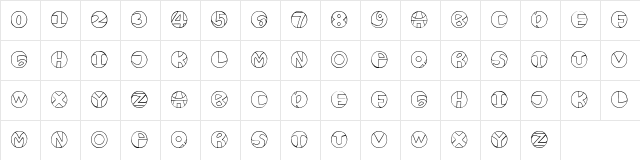
Bombastis Regular
| Designer | Oziel89 Studio |
Design Context for Bombastis Typeface
Bombastis is a composed and adaptable typeface that performs quietly and consistently across a wide range of design contexts.